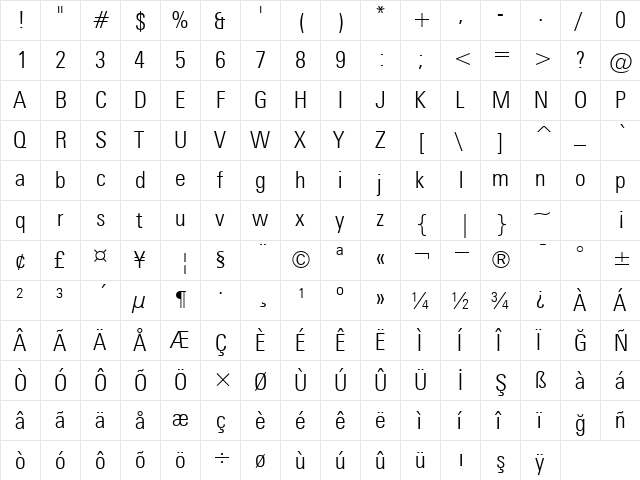
00297 Regular
Design Context for 00297 Typeface
00297 offers clean, dependable letterforms without strong stylistic allegiance, making it a practical choice for designers who need flexibility.